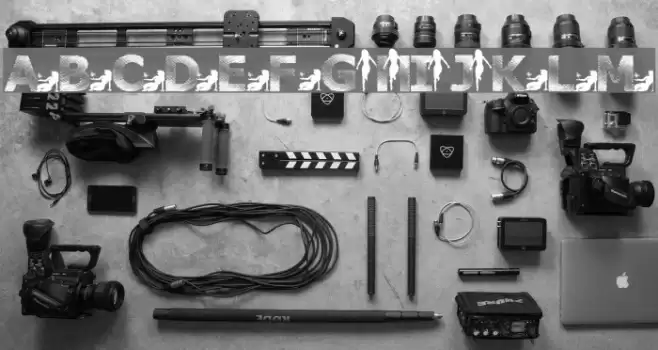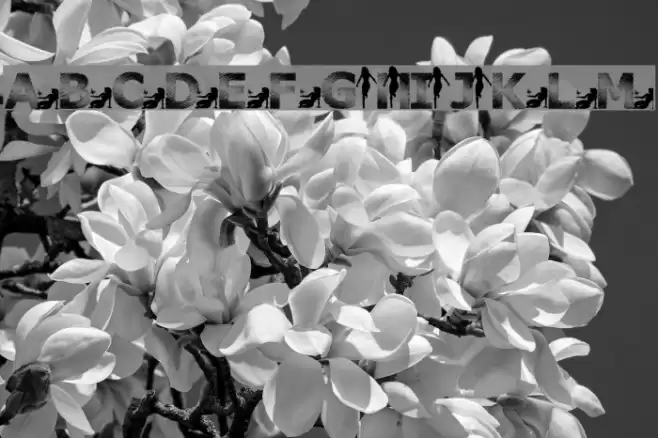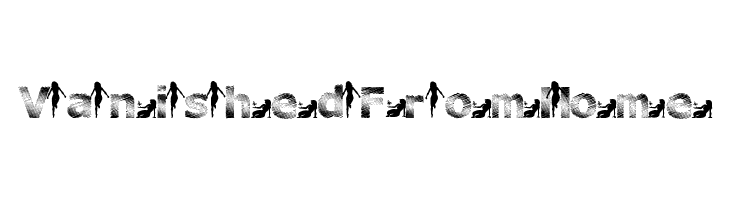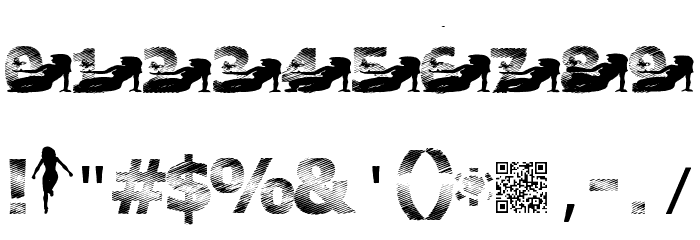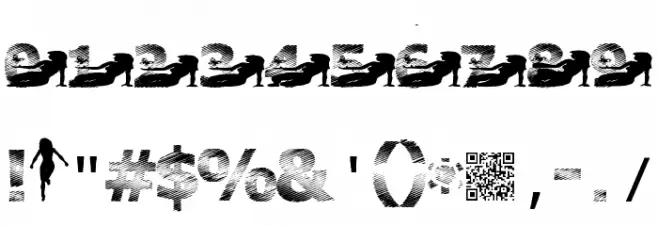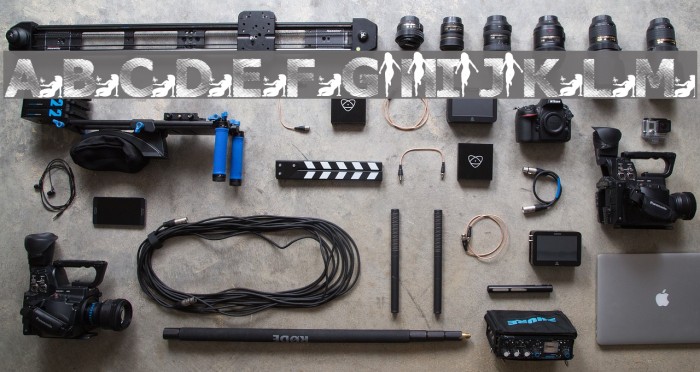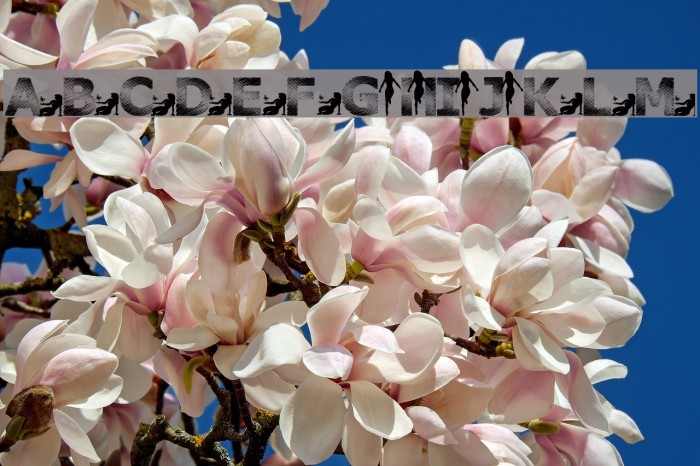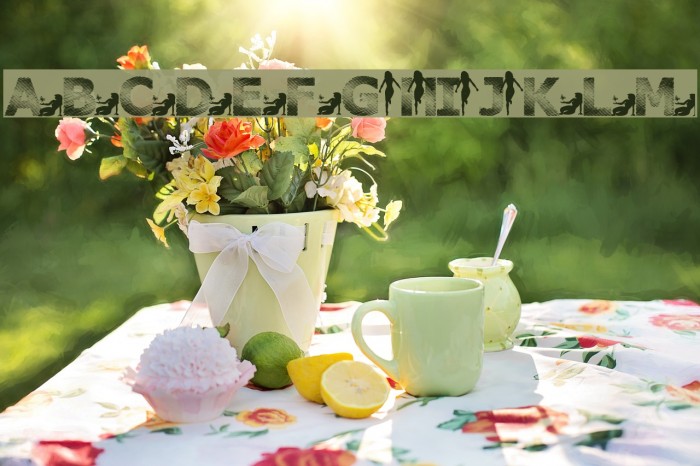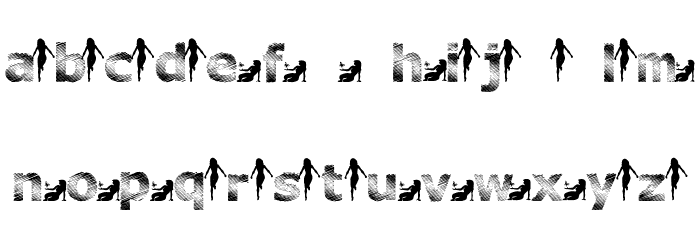
Vanished From Home Font
Vanished From Home Description
This font is a unique and creative display typeface that incorporates silhouettes of people into the design of each character. The letters and numbers are formed with a combination of bold, solid shapes and intricate cutouts that resemble human figures in various poses. This adds a playful and artistic element to the font, making it stand out as a decorative choice. The style is highly detailed, with each character having a distinct personality due to the integration of the silhouettes. The font maintains a consistent weight throughout, with medium contrast between the thick and thin areas of the characters. It is best suited for projects that require a bold and eye-catching aesthetic, such as posters, album covers, or artistic branding materials.
A decorative display font featuring human silhouettes integrated into each character from Uncategorized fonts.
- Proposed Projects: Ideal for creative projects like posters, album covers, artistic branding, and event promotions.